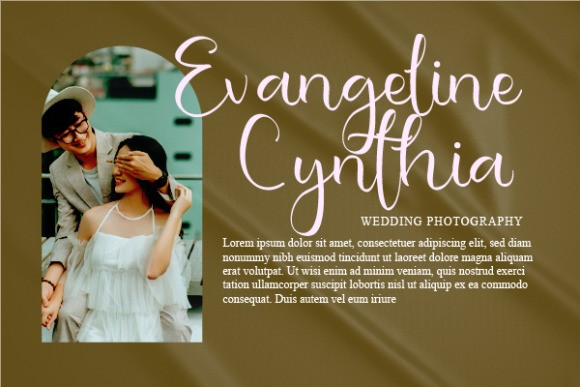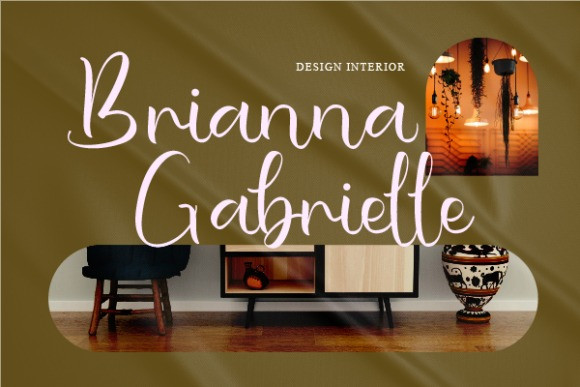
Biryanda Shaniya Font
Biryanda Shaniya is a delicate and flowing script font. You can use it for various projects, such as blog posts, logos, branding, ads, invitations, greeting cards, planners, photo albums, decorations, and much more.